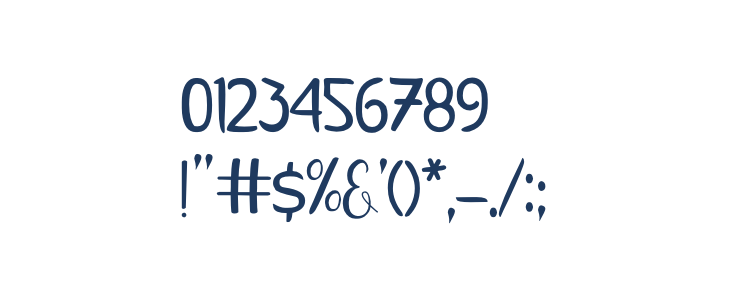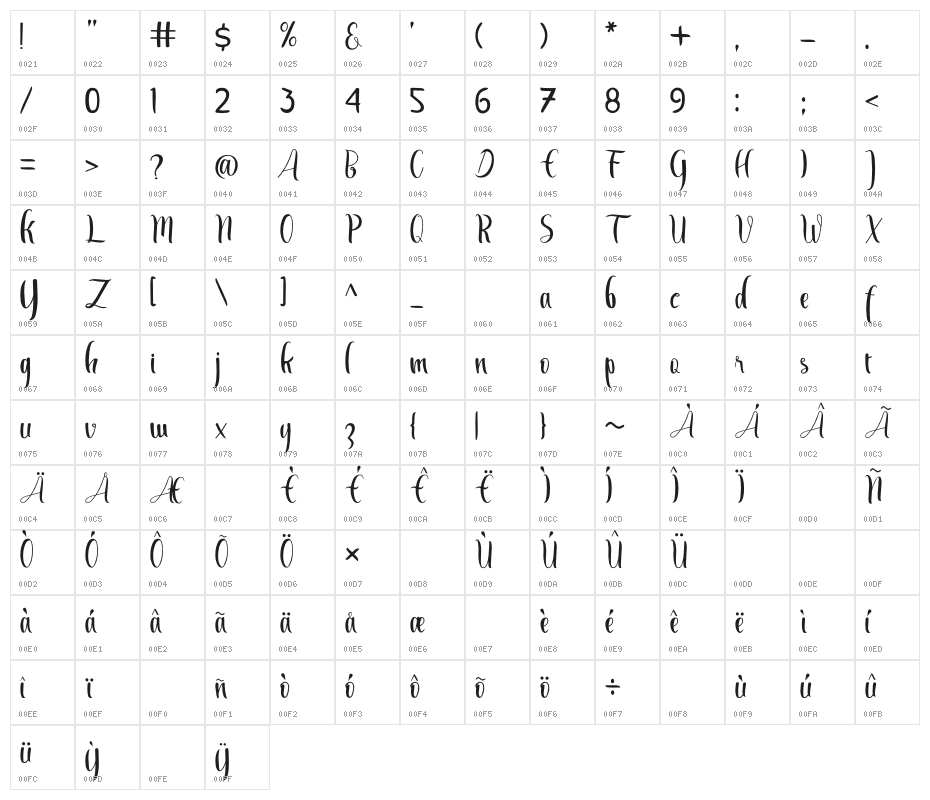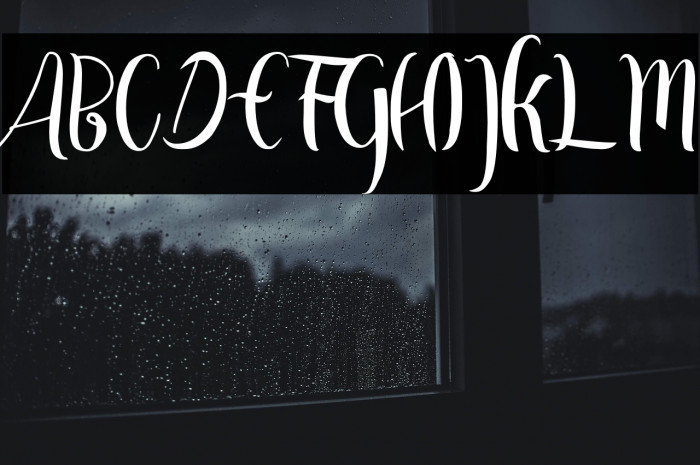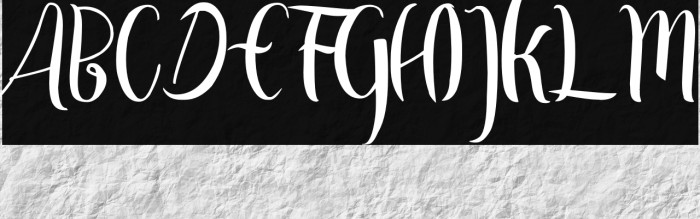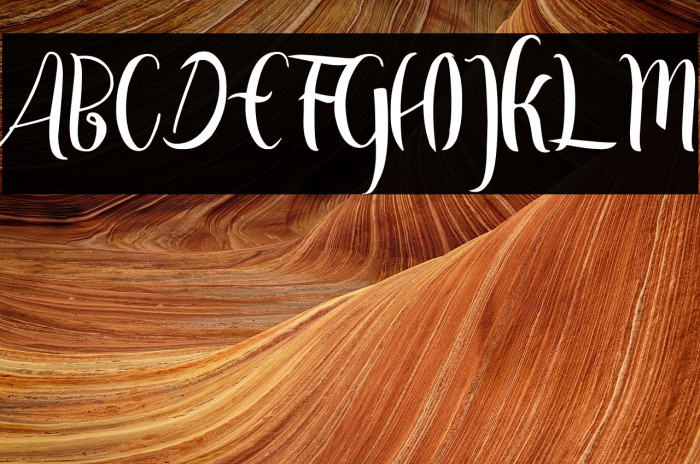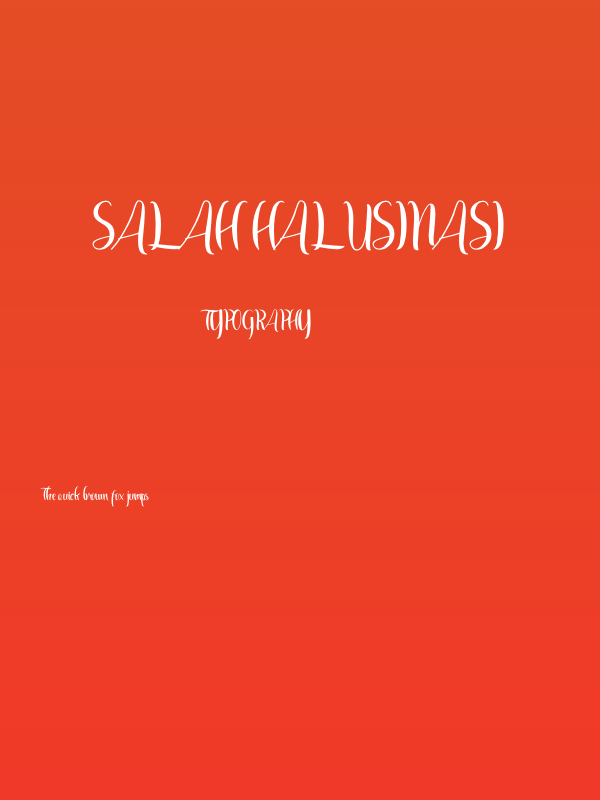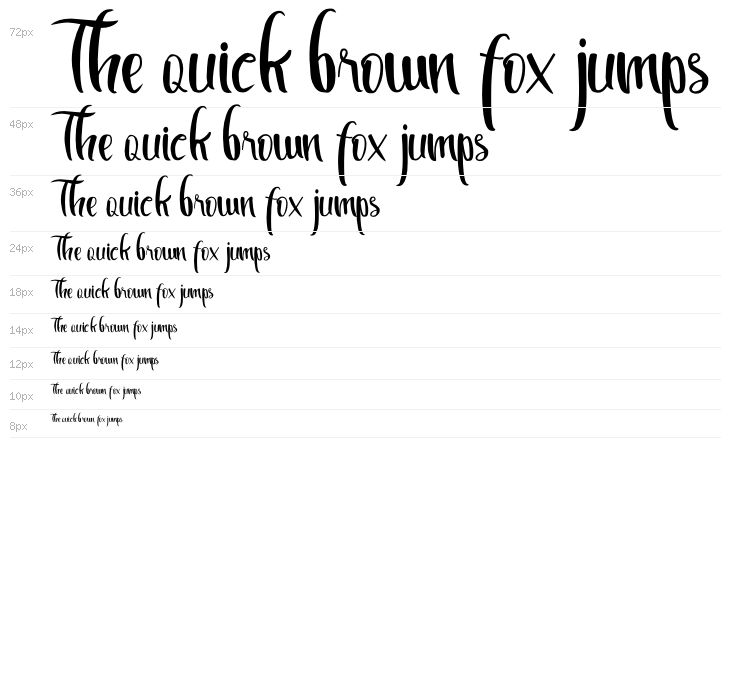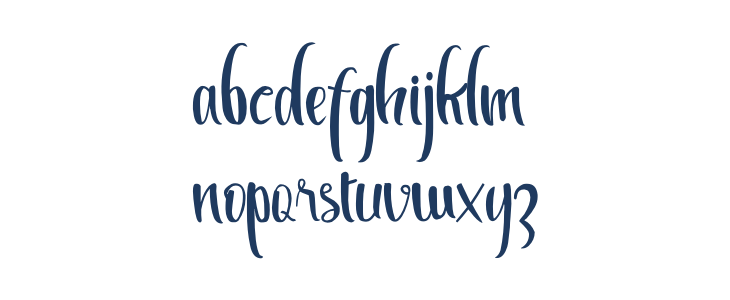
Salah Halusinasi Font
Salah Halusinasi Description
This font features a playful and artistic script style with a hand-drawn appearance. The characters are fluid and dynamic, with varying stroke widths that add a sense of movement and energy. The uppercase letters are tall and elegant, while the lowercase letters maintain a consistent flow, enhancing readability. Numbers and special characters are designed with the same whimsical flair, making them suitable for creative projects. The overall design is both expressive and versatile, perfect for adding a personal touch to any text.
| Proposed Projects | Ideal for greeting cards, invitations, branding, and artistic posters. |